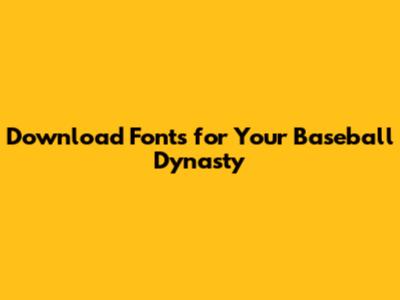
- Serif Fonts: These are classic fonts with little decorative strokes at the end of each letter. They convey a sense of tradition, sophistication, and stability. Perfect if you're going for an old-school or established feel. Think about the fonts used by the Boston Red Sox or the St. Louis Cardinals – a nod to the history of the sport.
- Sans-Serif Fonts: These are clean and modern fonts without the decorative strokes. They're great for a contemporary, minimalist look. Use these to communicate innovation and a forward-thinking approach. The sleekness can reflect speed, agility, and a modern approach to the game.
- Script Fonts: These fonts mimic handwriting and add a touch of elegance or playfulness. They can work well for logos or specific design elements, but can be hard to read for body text. Ideal if you want a touch of personality or to evoke a vintage aesthetic.
- Display Fonts: Designed for headlines and short bursts of text, display fonts come in all shapes and sizes. They're perfect for creating a bold, eye-catching logo or emphasizing a particular team motto. These are used when you want to make an immediate impact. These are often creative and bold, helping you stand out from the competition. Think about a font that matches your team's nickname or mascot.
- Create a Brand Style Guide: Document your fonts, colors, and other design elements to ensure consistency. This helps anyone creating materials for your team understand the brand’s visual identity. This prevents any confusion and makes it simple to ensure that any branding is consistent.
- Pair Fonts Wisely: Don't overload your design with too many fonts. Stick to two or three at most. Pair a headline font with a body font that complements it. It ensures that the design doesn't become too busy.
- Test Your Fonts: Try your fonts out in different contexts (logos, jerseys, website) to ensure they look good everywhere. Try to create mockups of what the jerseys or website will look like to make sure it will translate and look good in reality.
- Focus on Hierarchy: Use different font sizes, weights, and styles to create visual interest and guide the viewer's eye. Hierarchy is a core design principle that allows you to emphasize the most important information first and keep your viewers engaged.
- Stay Updated: Fonts can go in and out of style. While classic fonts always work, try to keep an eye on current design trends and update your font choices accordingly. This keeps your brand looking fresh and modern.
- Font Editing Software: Applications like FontForge or Glyphs allow you to modify the shapes, spacing, and other aspects of existing fonts. You can adjust individual letterforms, add custom ligatures, and create unique variations to match your team's personality. These tools are often complex, but they provide a high level of customization. Learning to use them can allow you to create fonts that are truly original.
- Commissioning a Custom Font: If you have the budget, consider hiring a professional font designer to create a custom font for your team. This is a great way to ensure that your font is completely unique and perfectly aligned with your brand. A custom font adds that wow factor to your dynasty.
- Combining Fonts: Another approach is to combine elements from different fonts to create something new. This might involve using a serif font for the main text and a sans-serif font for headlines or adding a script font for your team's signature. Experimentation is key; just make sure to maintain readability and consistency.
- Color and Effects: Once you’ve selected your font, think about how it looks with color and effects. Try adding a drop shadow or outline to your font to make it stand out against different backgrounds. Color can also be a significant part of the customization process. Choose colors that represent your team. This will allow for the perfect synergy of font and color!
Hey guys, are you ready to build the ultimate baseball dynasty? Well, before you even start drafting players and setting lineups, you gotta get the look right! I'm talking about the fonts, the very essence of your team's visual identity. Choosing the perfect font can transform your team's brand, making it look professional, cool, and intimidating all at once. So, how do you find the right fonts? Where do you even begin? Don't worry, I've got you covered. Let's dive into the world of font downloads and how to get those perfect fonts for your baseball dynasty project. We're talking logos, jerseys, social media graphics, and everything in between. It's time to elevate your game and create a visual experience that screams success.
Why Fonts Matter in Your Baseball Dynasty
Alright, let's get real for a second. Why are fonts so incredibly important for your baseball dynasty? It's simple, really. Fonts are the unsung heroes of visual communication. They're the silent messengers that convey your team's personality, values, and ambitions. Think about it: a sleek, modern font can project professionalism and innovation, while a bold, vintage font might evoke a sense of tradition and history. Imagine trying to build a baseball dynasty with Comic Sans... shudders. The font you choose is a direct reflection of your team. It impacts how fans perceive your team and even how potential players view your organization. A well-chosen font can instill a sense of pride and identity, both internally and externally. When your team looks good, it feels good, and that can translate to a winning attitude on and off the field. Plus, in today's digital world, a strong visual brand is essential for attracting attention, building a following, and ultimately, achieving your goals. It’s not just about winning games; it’s about crafting a compelling narrative, one that captures the imagination of fans and the respect of rivals. So, let’s make sure we get this right, shall we?